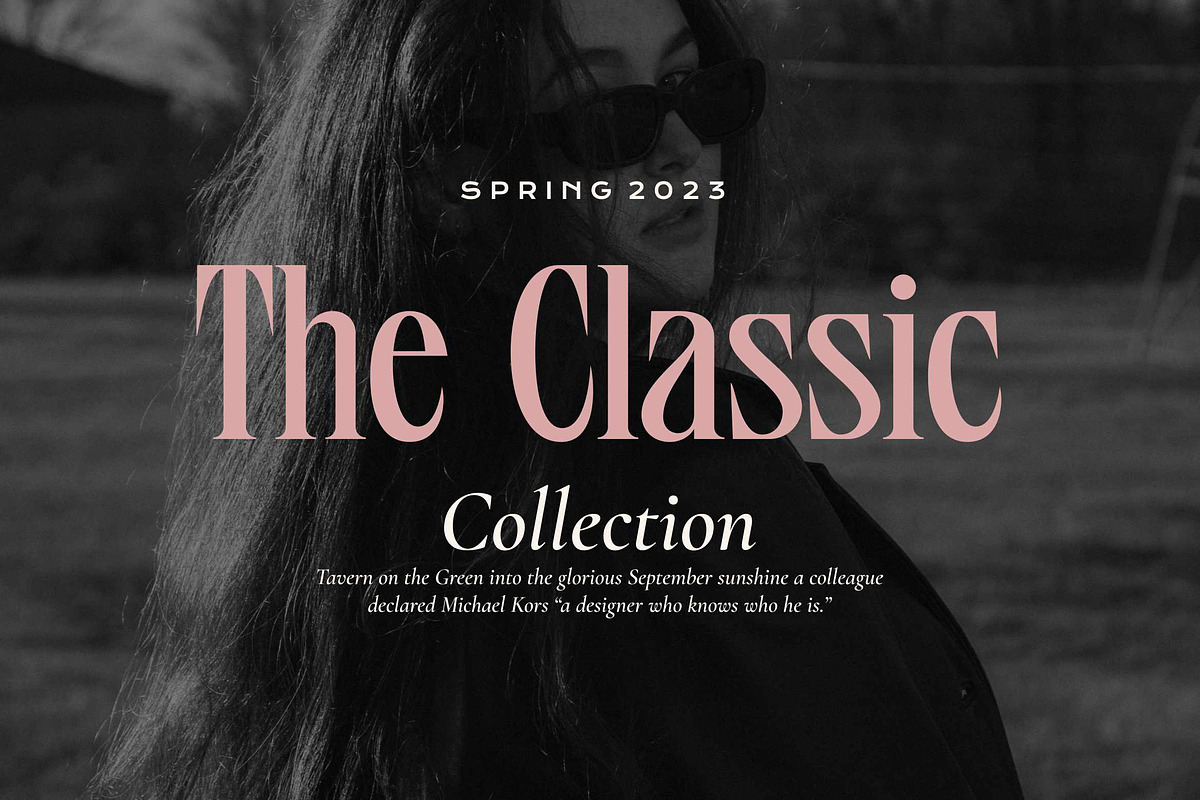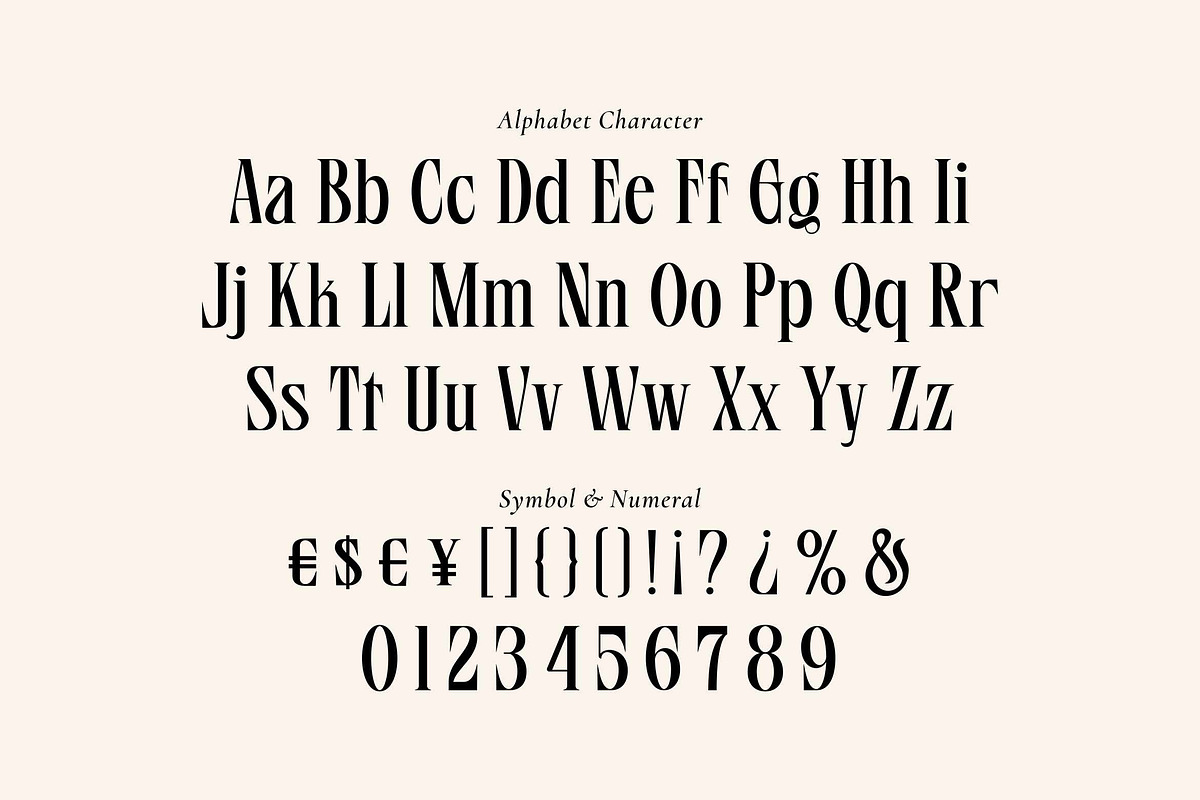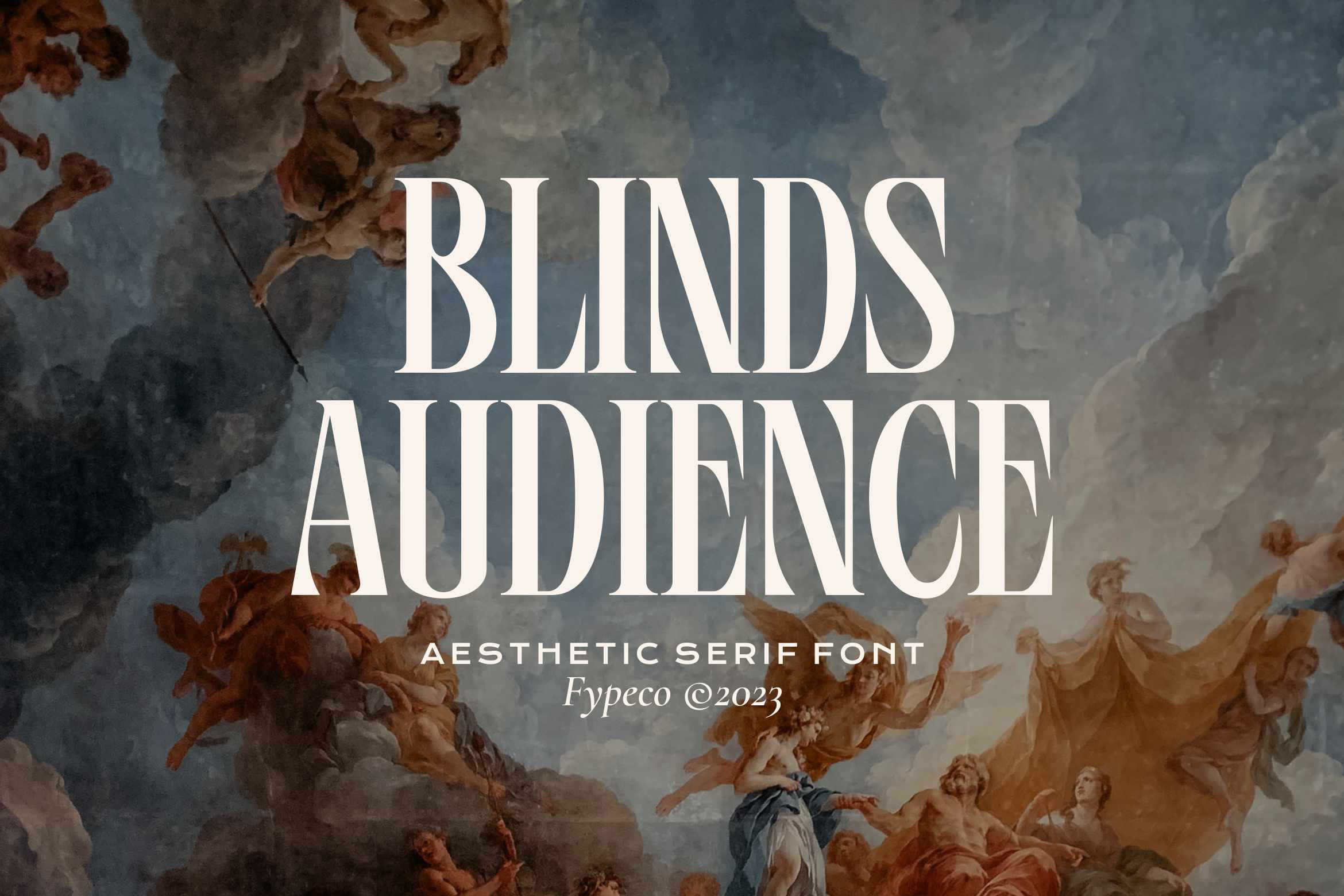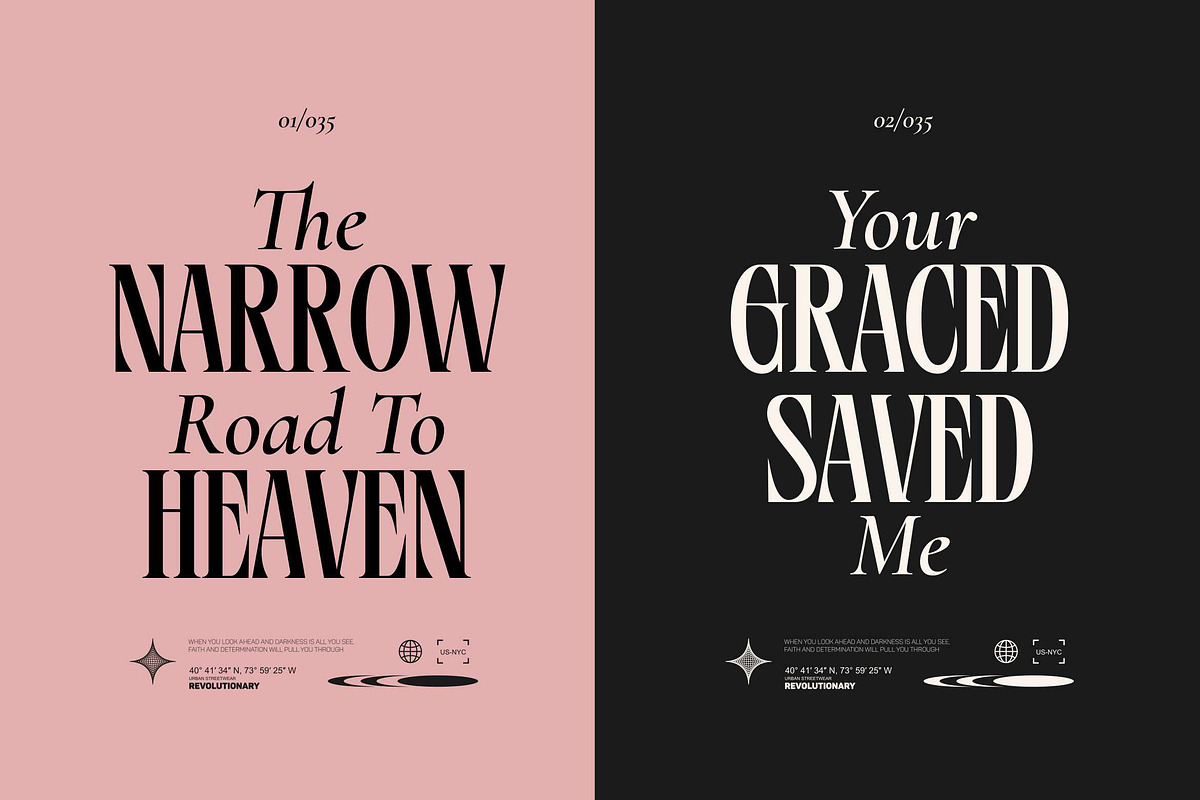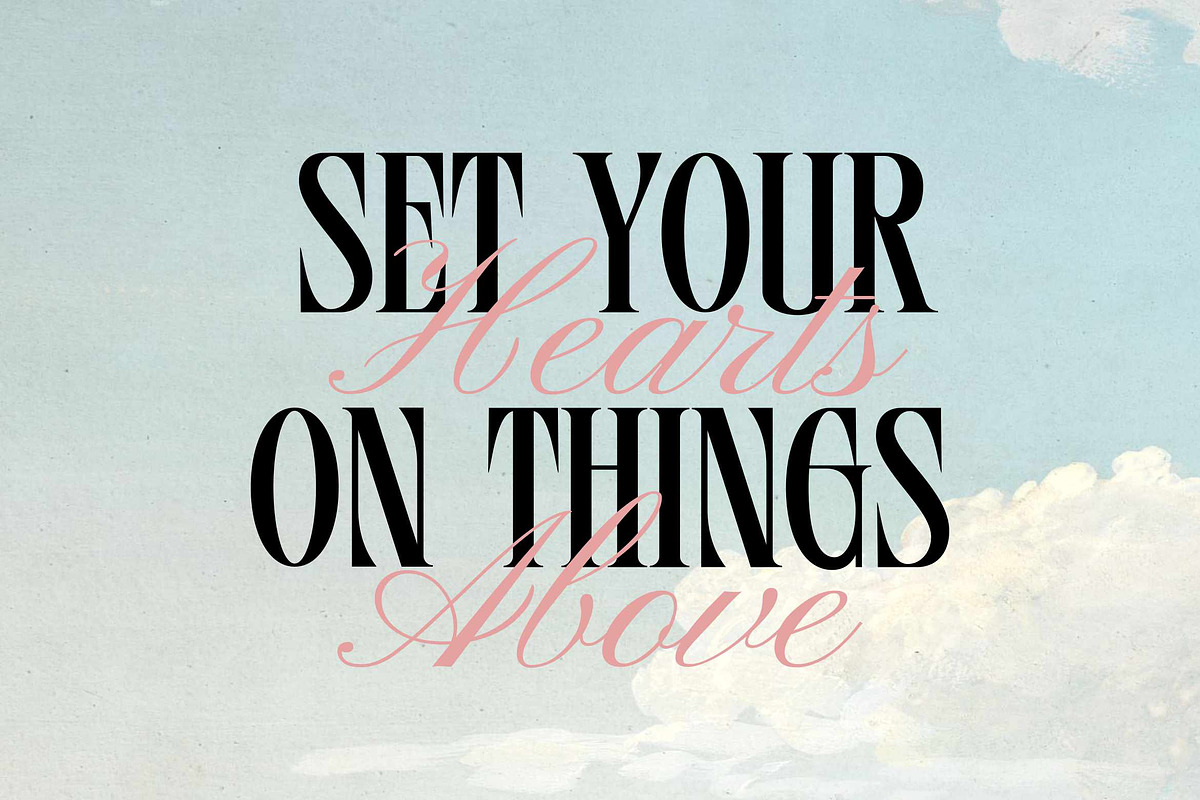
Blinds Audience - Aesthetic Font
Blinds Audience is aesthetic serif font with modern look. Perfectly to be applied to the other various typography forms such as magazines, books, greeting cards, packaging, fashion, quotes, labels or any type purpose.